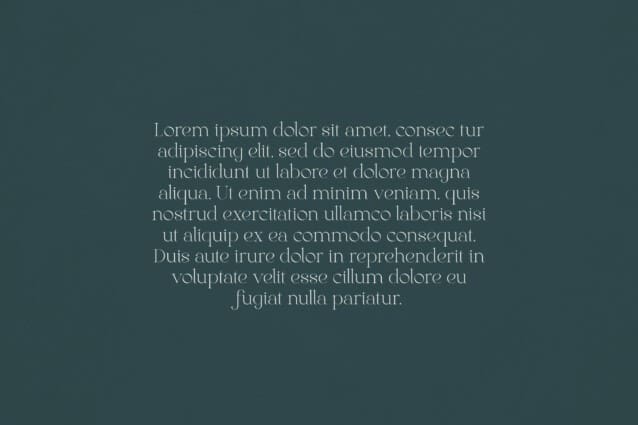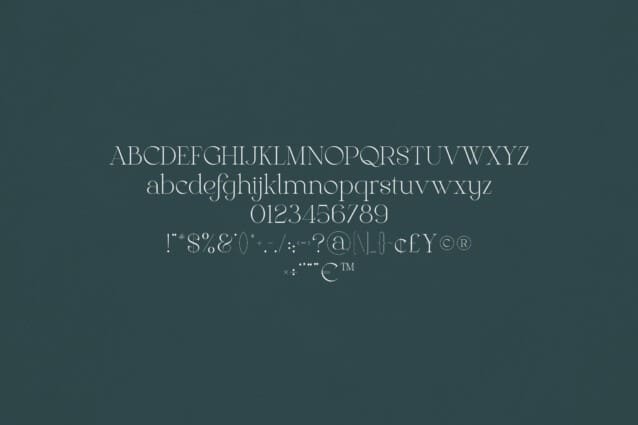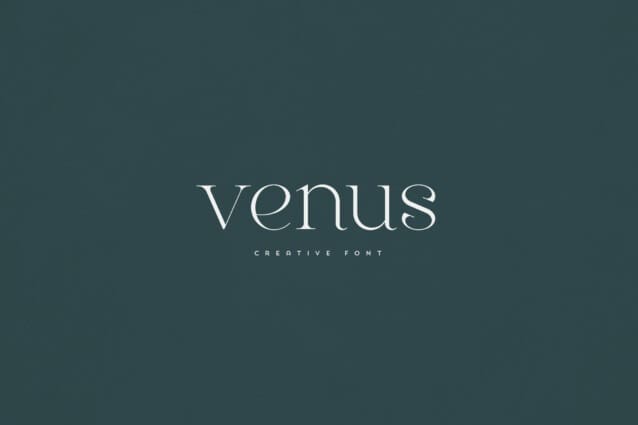
Venus Font
Venus Font is an elegant and versatile serif font that will make your typography truly unique! It will enchant every logo, branding, headline, or plain text!